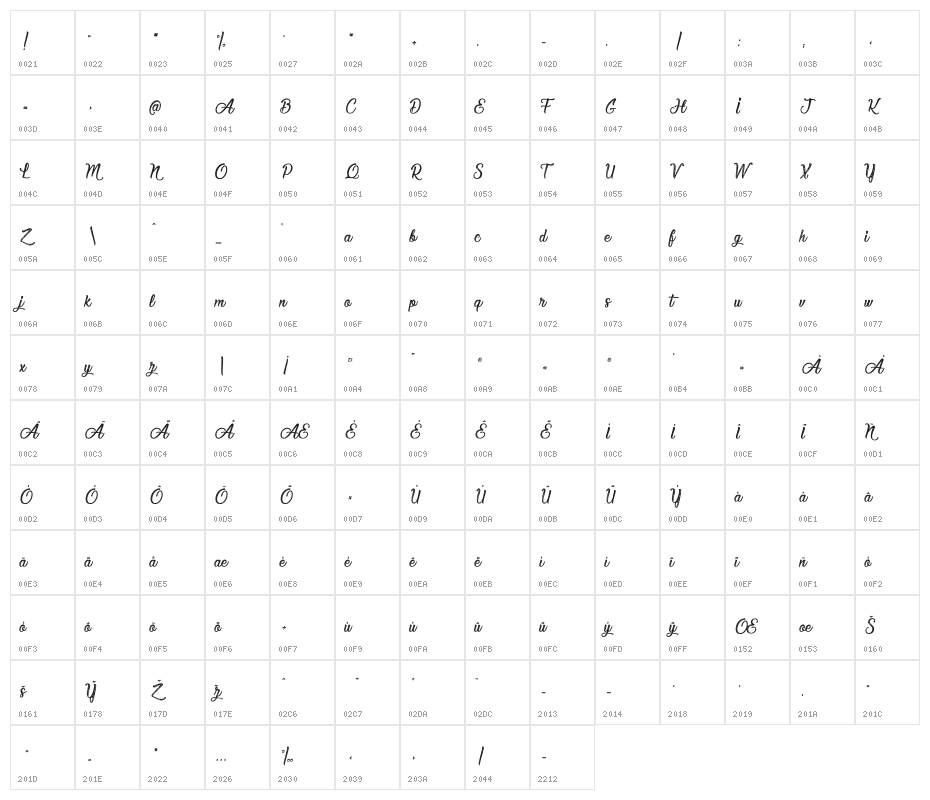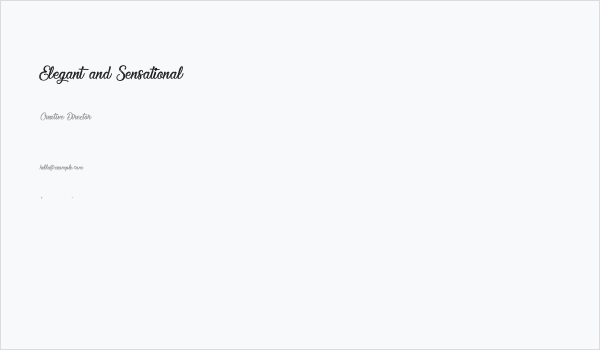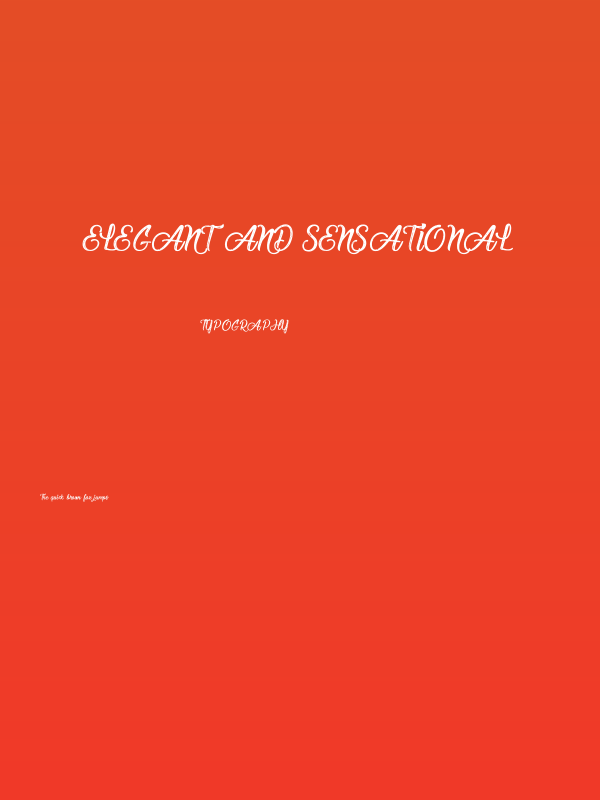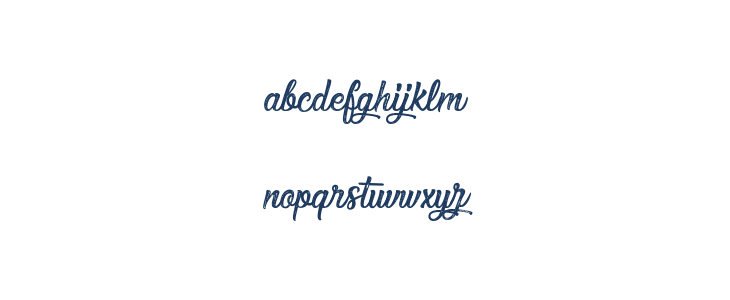
Elegant and Sensational Font
Elegant and Sensational Description
This font exudes elegance and sophistication with its flowing script style. The characters are intricately designed, featuring graceful curves and flourishes that give it a handwritten feel. The uppercase letters are particularly ornate, with sweeping lines that extend beyond the baseline, adding a touch of drama and flair. The lowercase letters maintain a consistent style, with smooth connections between characters, enhancing readability while preserving the decorative nature. The numerals and special characters are equally stylized, ensuring a cohesive look across all text elements. This font is perfect for projects that require a touch of class and elegance, such as wedding invitations, luxury branding, or high-end product packaging.
| Proposed Projects | Ideal for wedding invitations, luxury branding, and high-end product packaging. |